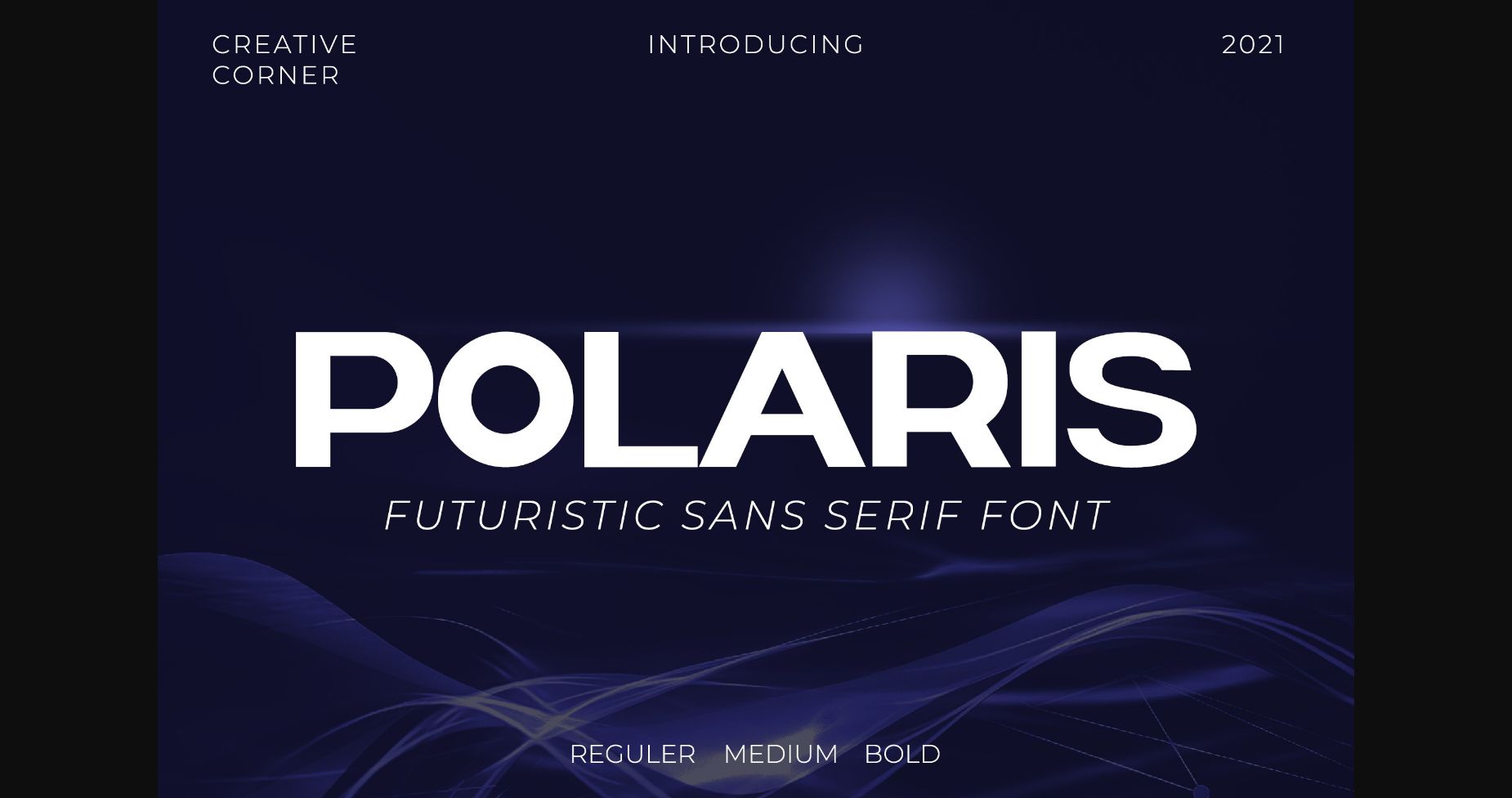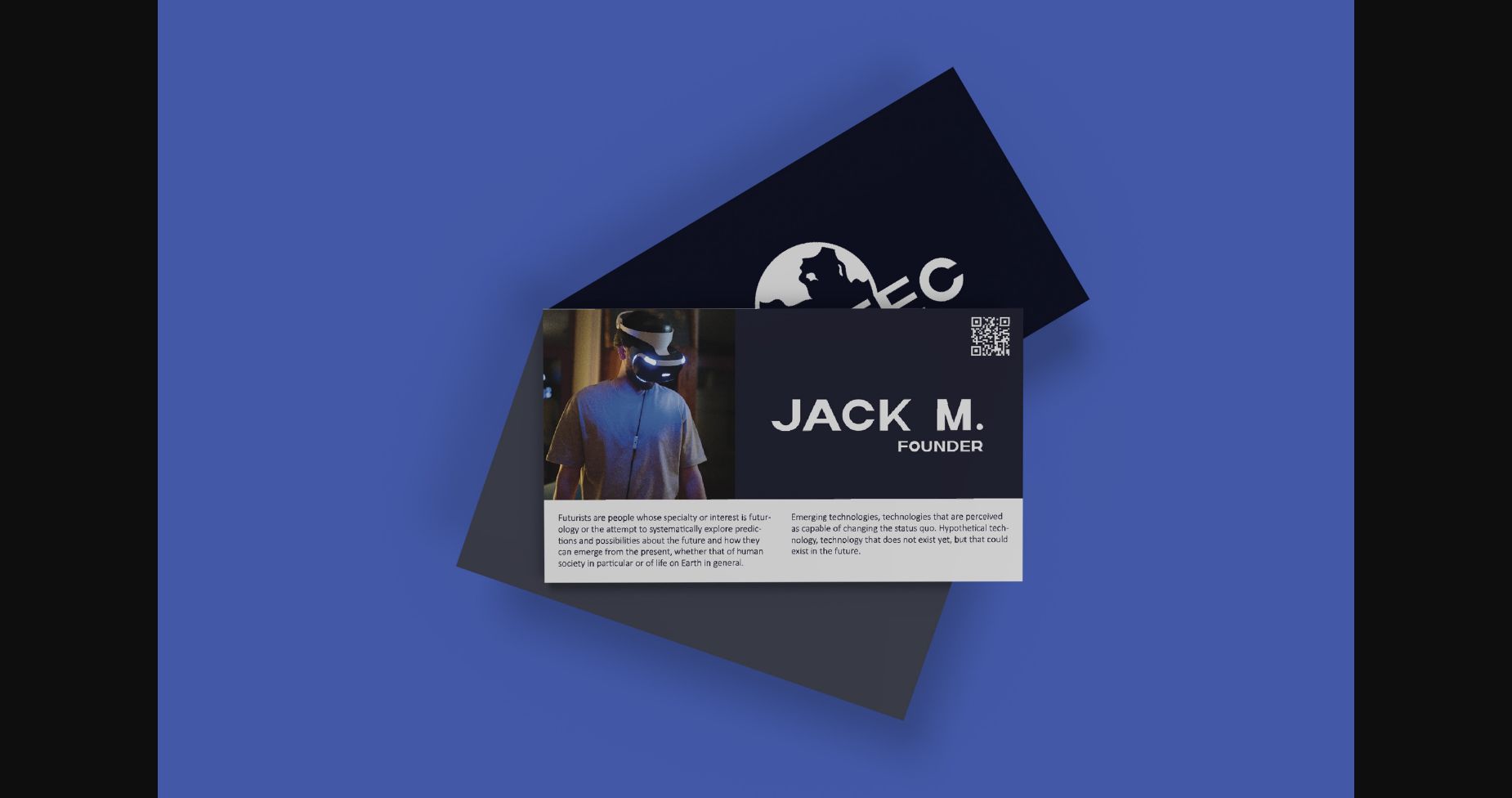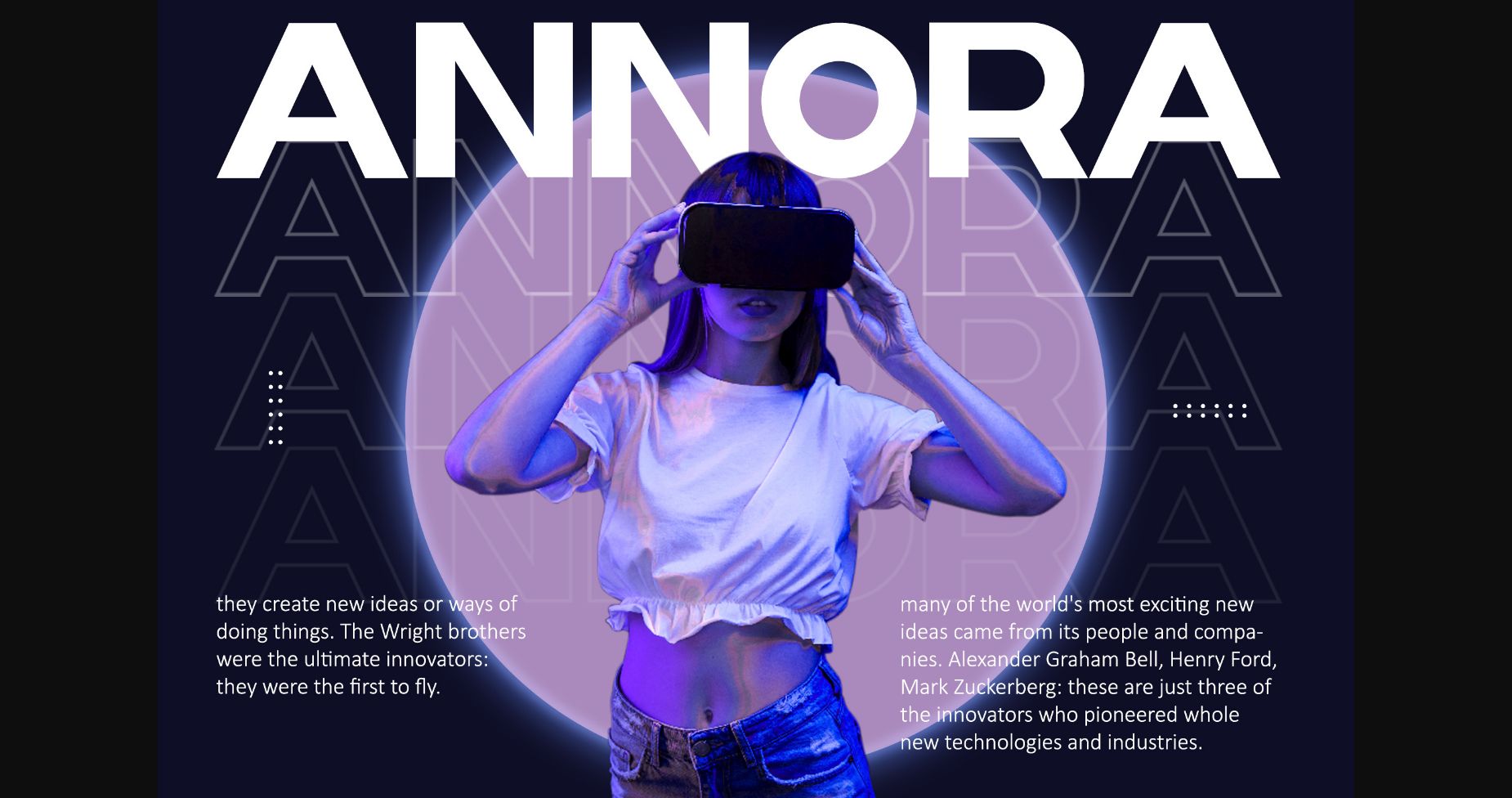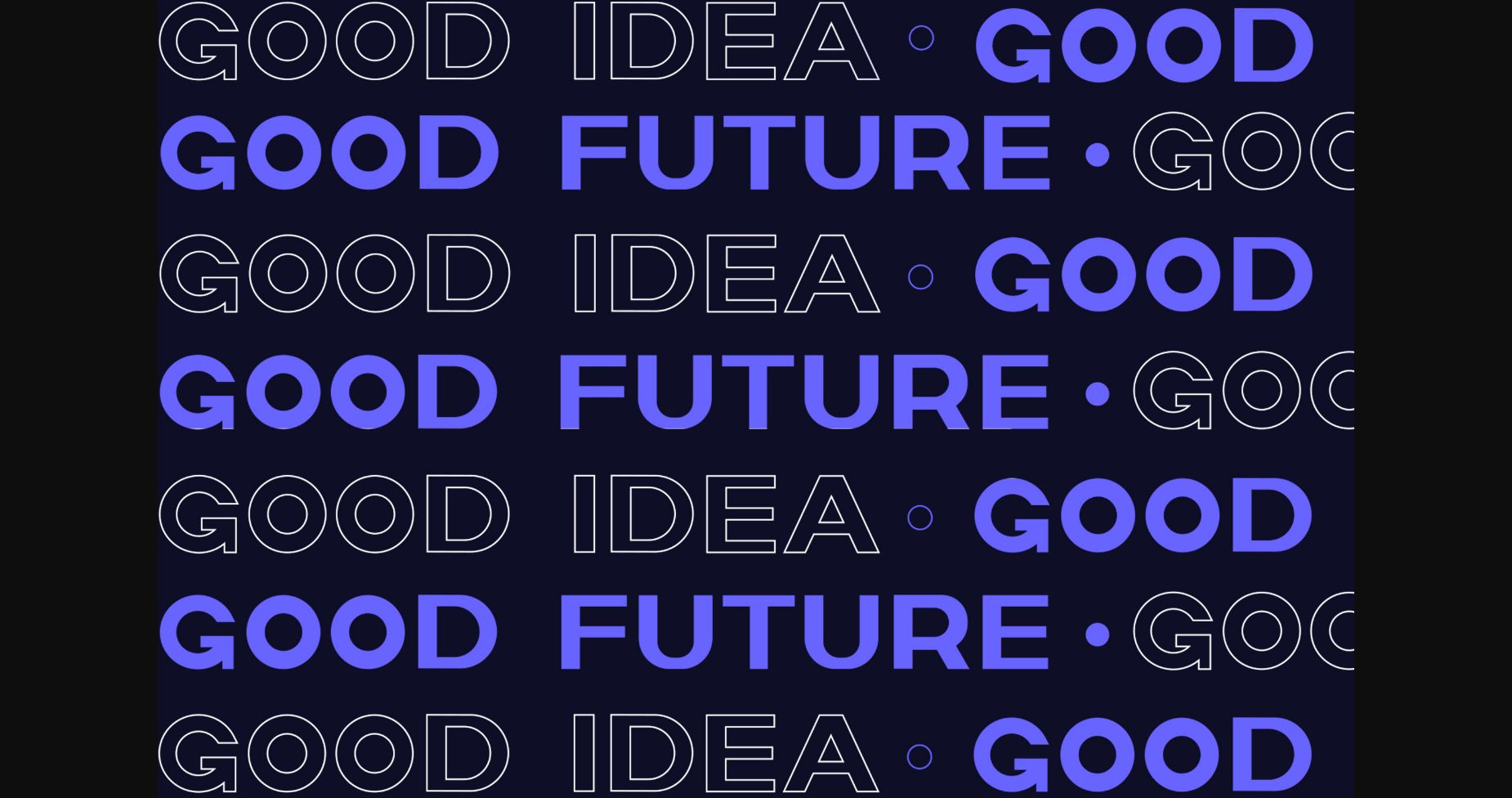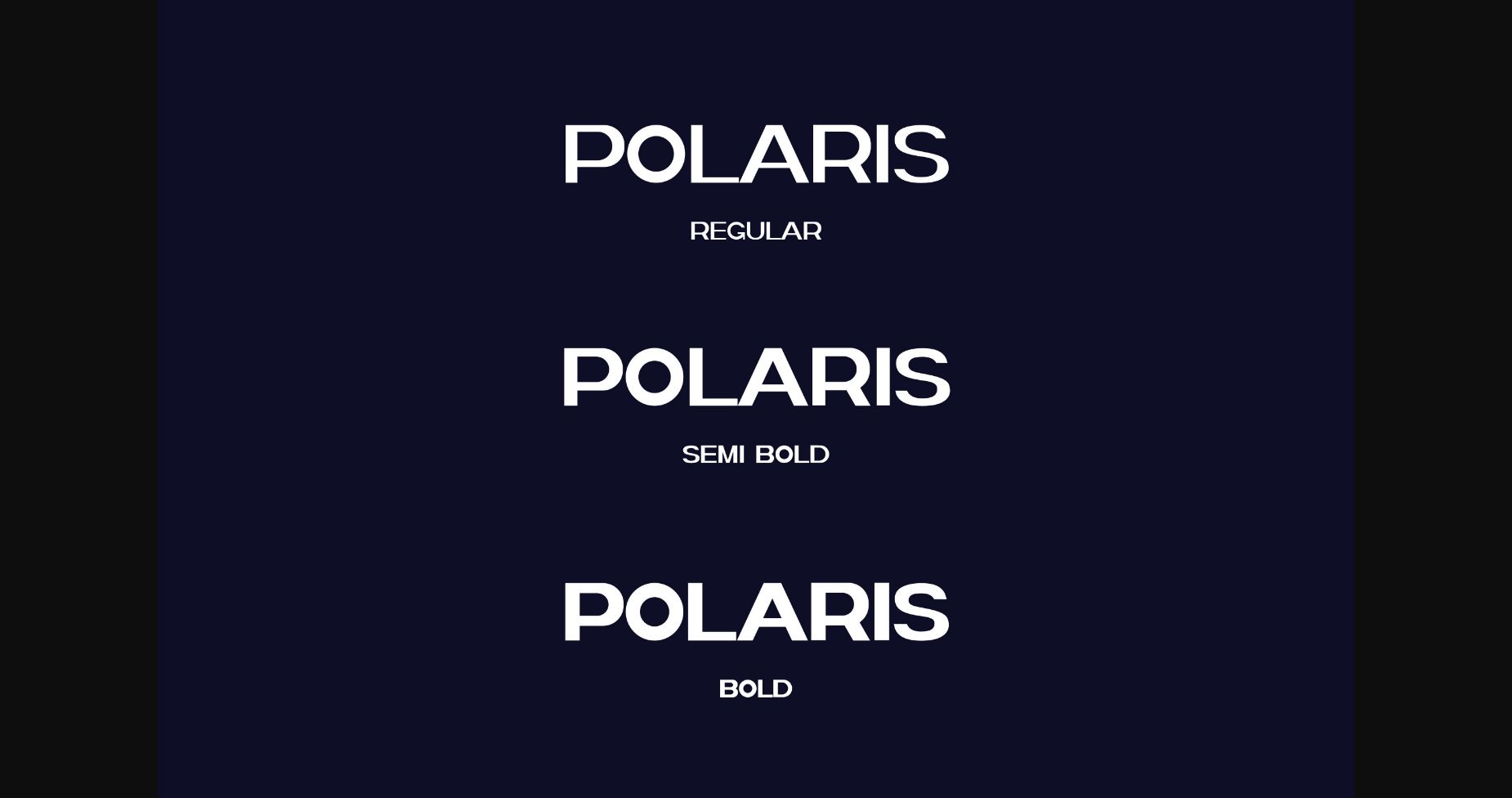
About Polaris Font
Polaris is a simple and bold sans serif font. It can easily be matched to an incredibly large set of projects, so add it to your creative ideas and notice how it makes them stand out!